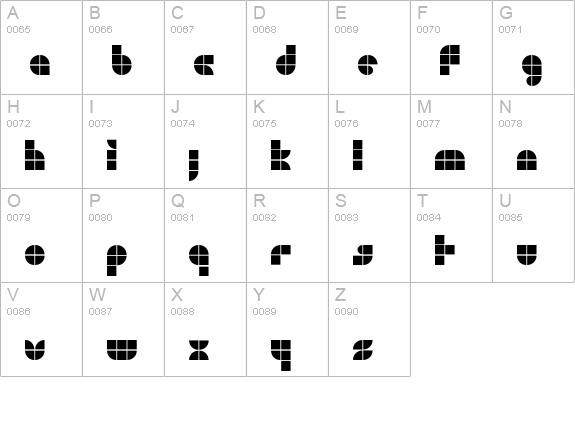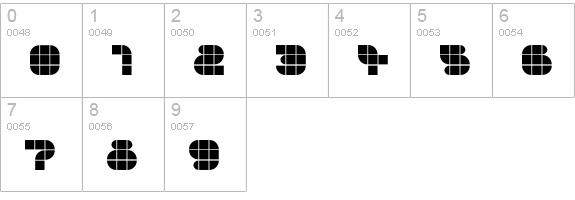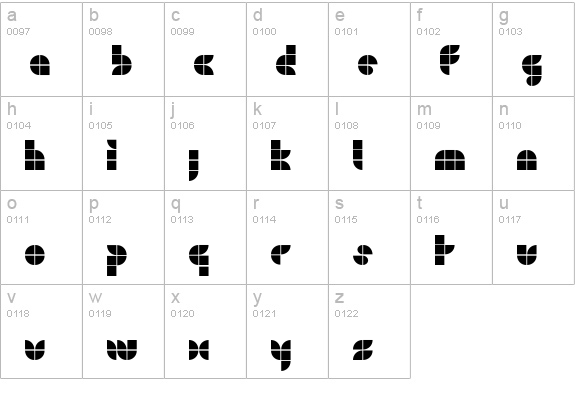
Unit3-Xtra Font Details
Introducing Unit3-Xtra, the perfect font choice for all your creative projects. With its sleek and modern design, this typeface exudes sophistication and elegance, making it an excellent choice for branding, advertisements, and editorial designs. What sets Unit3-Xtra apart is its versatility and adaptability to various design styles. Whether you're going for a clean and minimalist look or a bold and eye-catching design, this font has got you covered. Its unique letterforms and precise curves add a touch of uniqueness to any project, making it stand out from the crowd. But what makes Unit3-Xtra truly exceptional is the fact that it is free. Yes, you read that right! This incredible font is freely available to download at FontsMarket.com. Now, you can enhance your designs without breaking the bank. Say goodbye to expensive font licenses and hello to creativity on a budget. Unit3-Xtra comes with a wide range of characters, including uppercase and lowercase letters, numbers, punctuation marks, and special symbols. This extensive character set ensures that you have all the tools you need to bring your ideas to life. Whether you're a professional designer or a hobbyist, Unit3-Xtra is a must-have addition to your font library. Its seamless integration with various design software makes it easy to use and guarantees a smooth workflow. So, why wait? Elevate your designs with Unit3-Xtra today. Download this amazing font for free at FontsMarket.com and let your creativity soar to new heights.